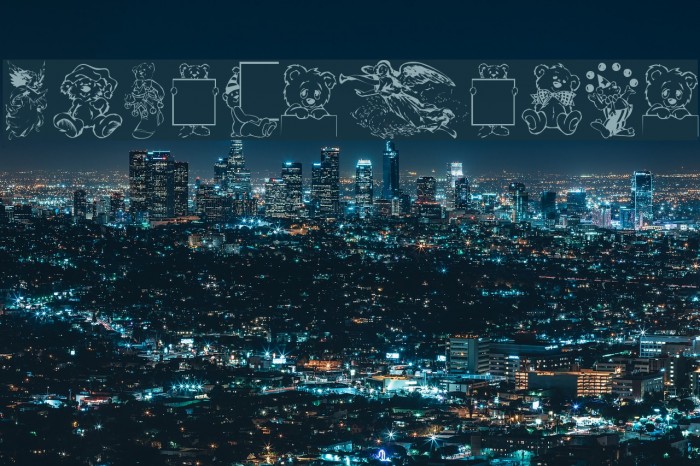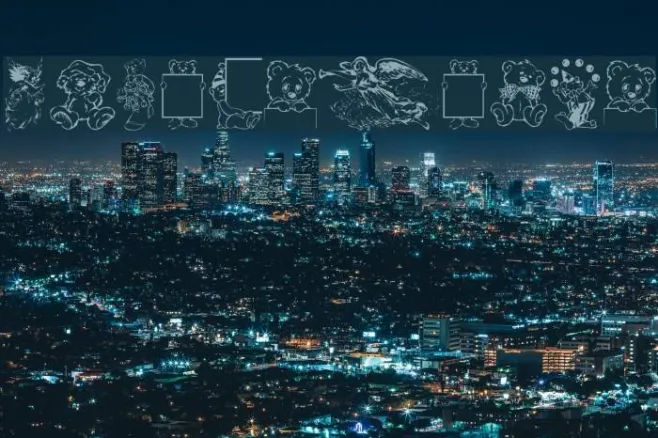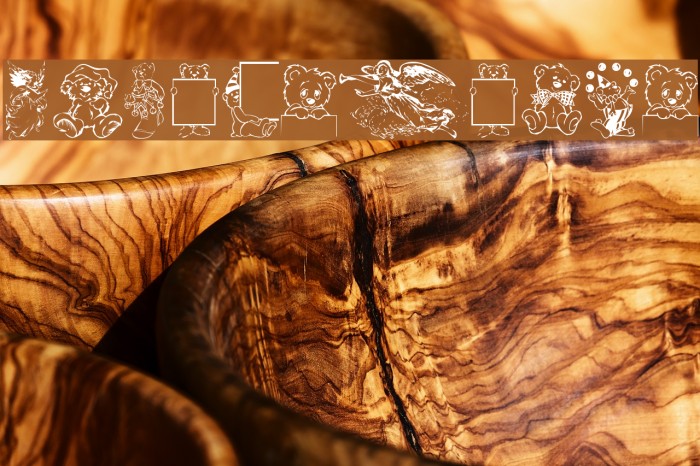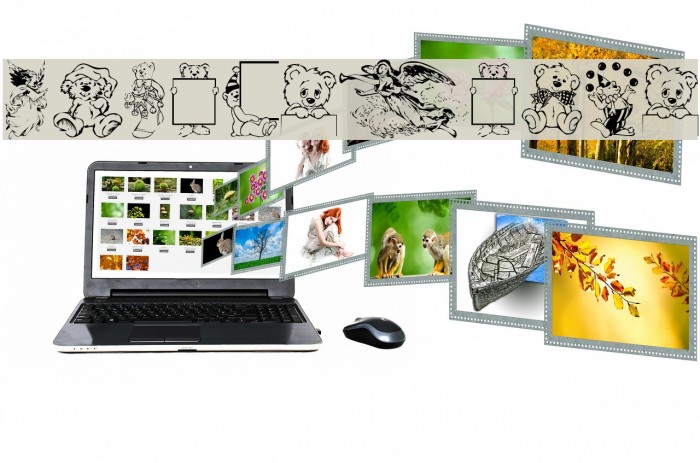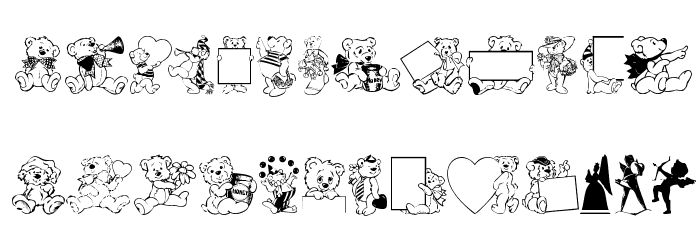
AngelsBears Font
AngelsBears Description
A decorative dingbat font featuring detailed illustrations of angels, bears, and various objects, with each character represented by a unique image rather than traditional letterforms. The style is playful and whimsical, with a hand-drawn, cartoon-like quality and a mix of outlined and filled elements.
| Overall Style | Decorative, Playful, Whimsical |
| Use Case | Decorative elements, Illustrative accents, Themed projects |
| Proposed Projects | Greeting cards, children's books, scrapbooking, decorative borders, playful invitations. |